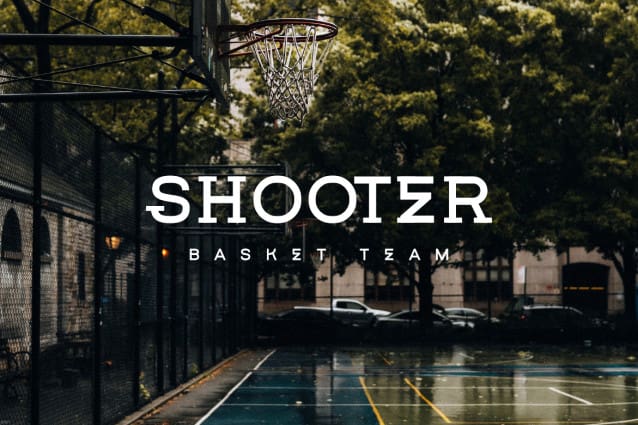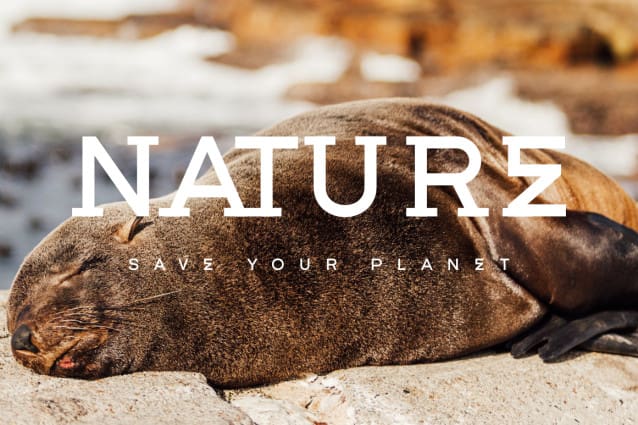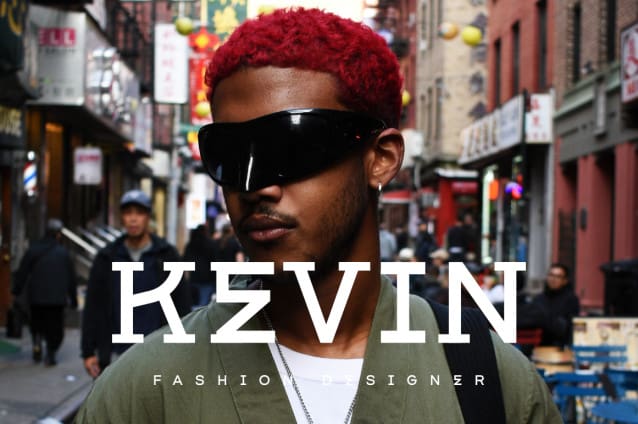
Getboreg Slab Font
Getboreg Slab Font, it is a modular, geometric typeface with subtle rounded angles that provides a soft, pleasant appearance. It has been conceived to be primarily a display typeface, but given its clarity it can also be used for composing short and intermediate length texts.